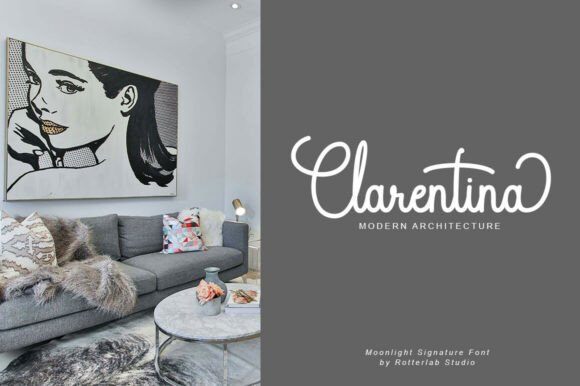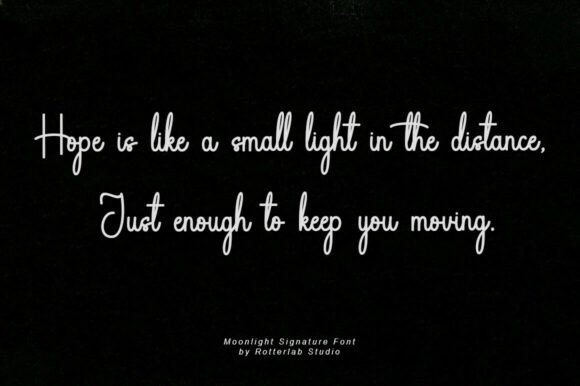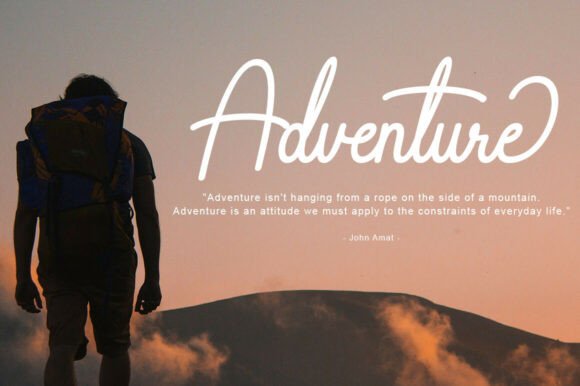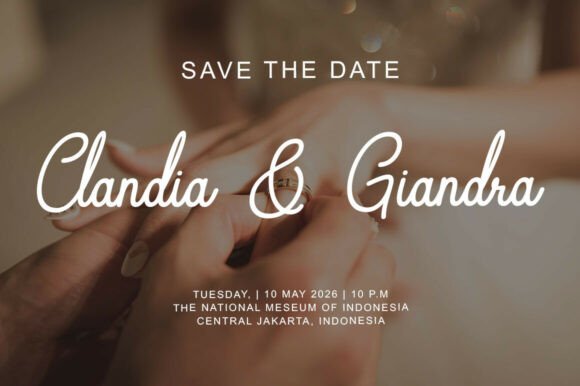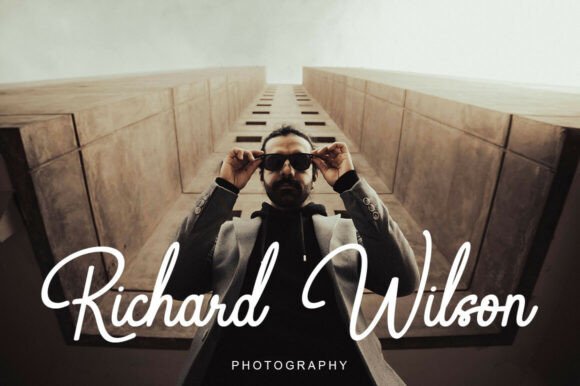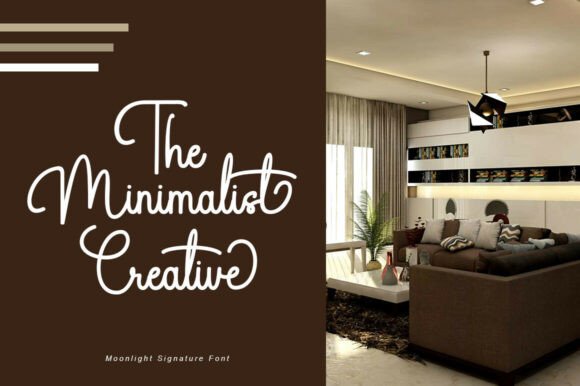
Introduction to Moolight Signature Font Font
Fonts play a crucial role in design, and the Moolight Signature Font font is a typeface that brings both character and versatility to any project. Whether you’re working on a branding project, a website, or a print design, the Moolight Signature Font font offers a unique style that can elevate your work.
Moonlight Signature is a sophisticated monoline script font that merges fluid elegance with technical precision.
Designed by Rotterlab Studio, this font captures the natural movement of handwritten strokes while maintaining the clarity and balance required for digital applications With its smooth curves and uniform line weight, Moonlight Signature offers a clean and refined aesthetic that lends itself to both creative expression and structured visual identity.
Key Features of Moolight Signature Font Font
Why Choose Moolight Signature Font Font?
The Moolight Signature Font font is more than just a typeface – it’s a design tool that helps you communicate your message with style and clarity. Its unique character set and versatile design make it suitable for a wide range of applications, from elegant invitations to bold headlines.
With its carefully crafted letterforms and balanced proportions, the Moolight Signature Font font ensures readability and visual appeal across all mediums.
What makes Moolight Signature Font font special?
The Moolight Signature Font font stands out with its unique design, exceptional readability, and versatility across various design applications.